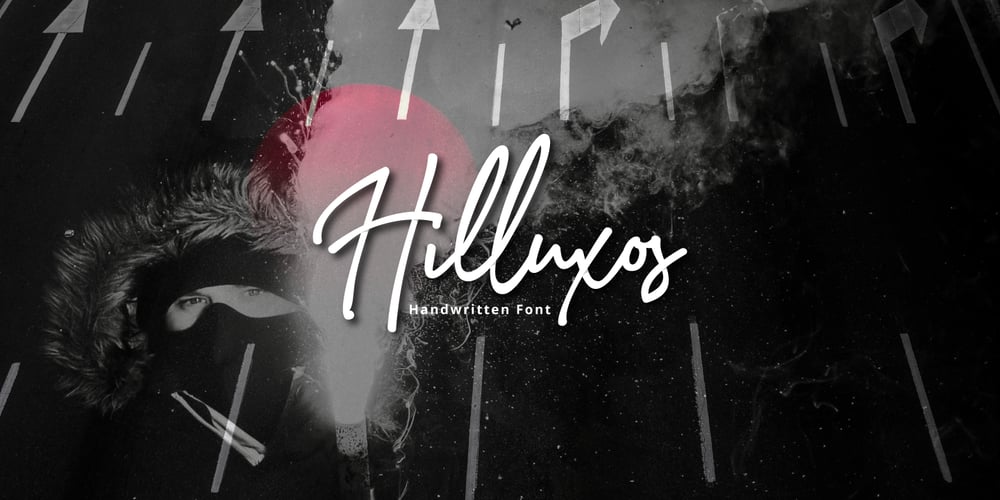
Hilluxos Script Font Family was designed by Ferdiansyah and published by ijemrockart. Hilluxos Script contains 1 styles and family package options. Hilluxos Script a new fresh & modern script with a handmade calligraphy style, decorative characters and a dancing baseline! So beautiful on invitation like greeting cards, branding materials, business cards, quotes, posters, and more!!Hilluxos Script come with 300 glyphs+. The alternative characters were divided into several Open Type features such as Swash, Stylistic Sets, Stylistic Alternates, and Ligature. The Open Type features can be accessed by using Open Type savvy programs such as Adobe Illustrator, Adobe InDesign, Adobe Photoshop Corel Draw X version, And Microsoft Word. And this Font has given PUA unicode (specially coded fonts). so that all the alternate characters can easily be accessed in full by a craftsman or designer.International Languange & Symbols Support Punctuation & Number PUA Unicode Range Standard Ligatures Discretionary Ligatures Stylistic Alternates Stylistic Set 01-02 Character The ZIP file are include the following.